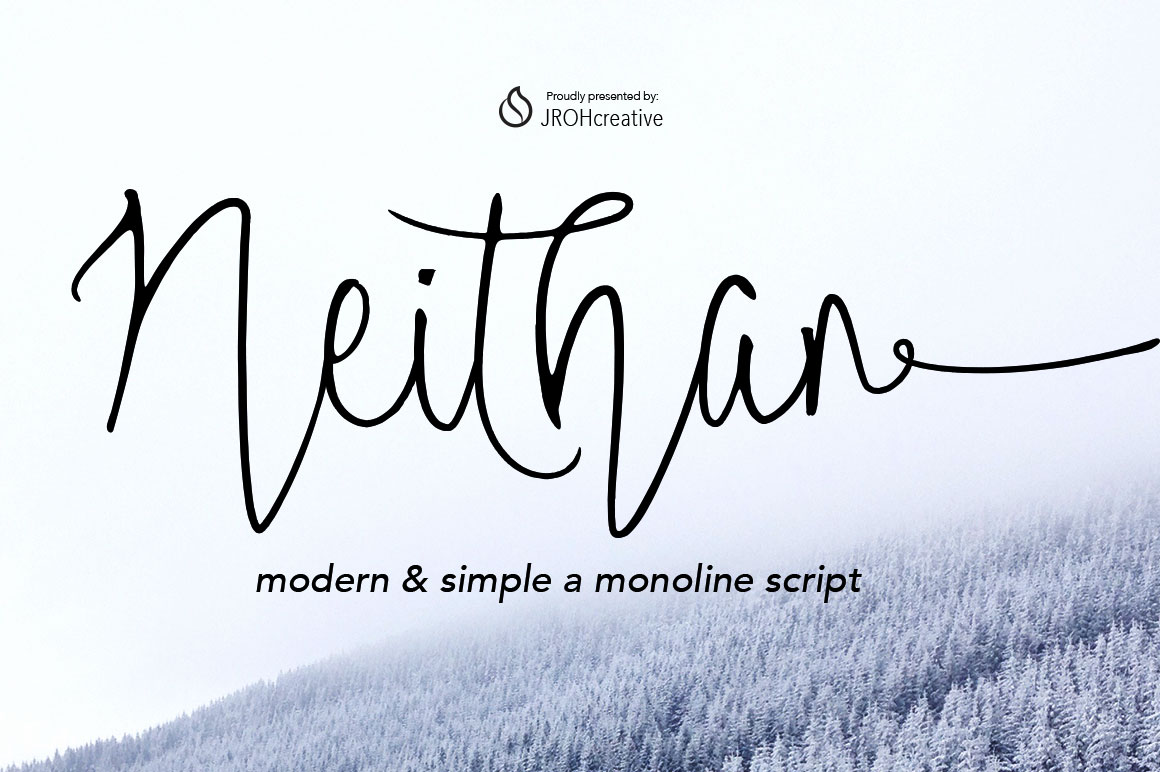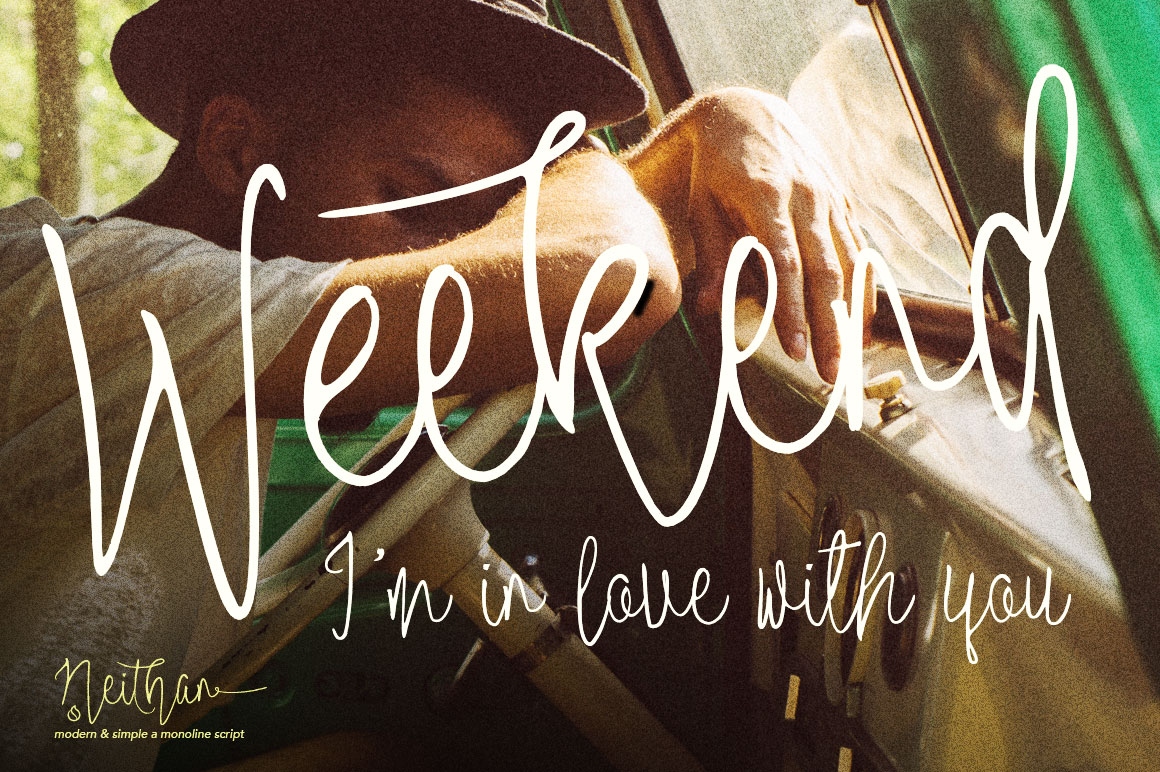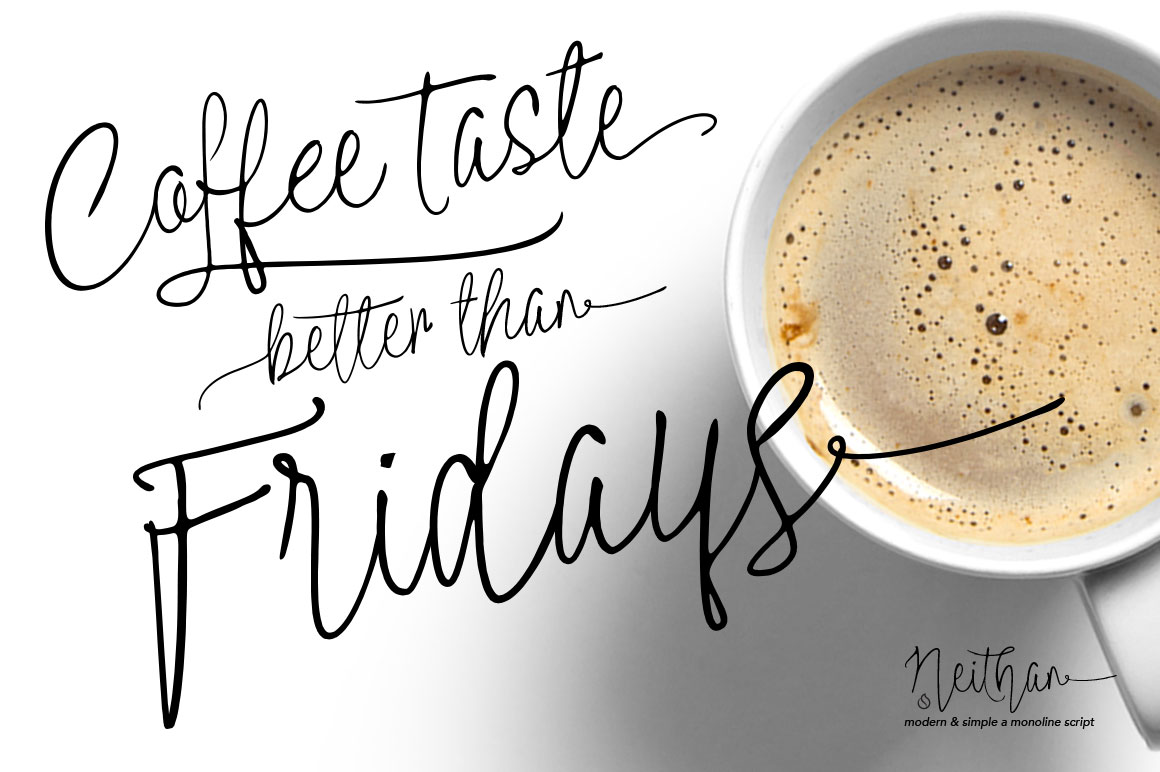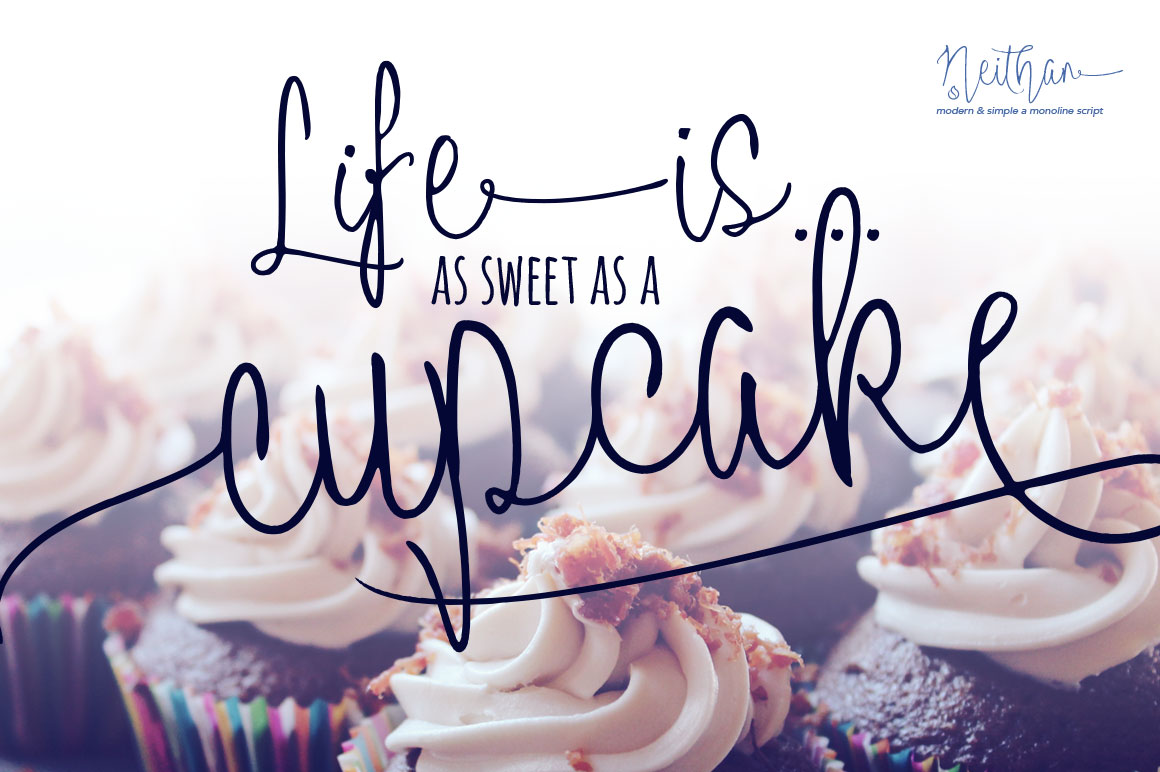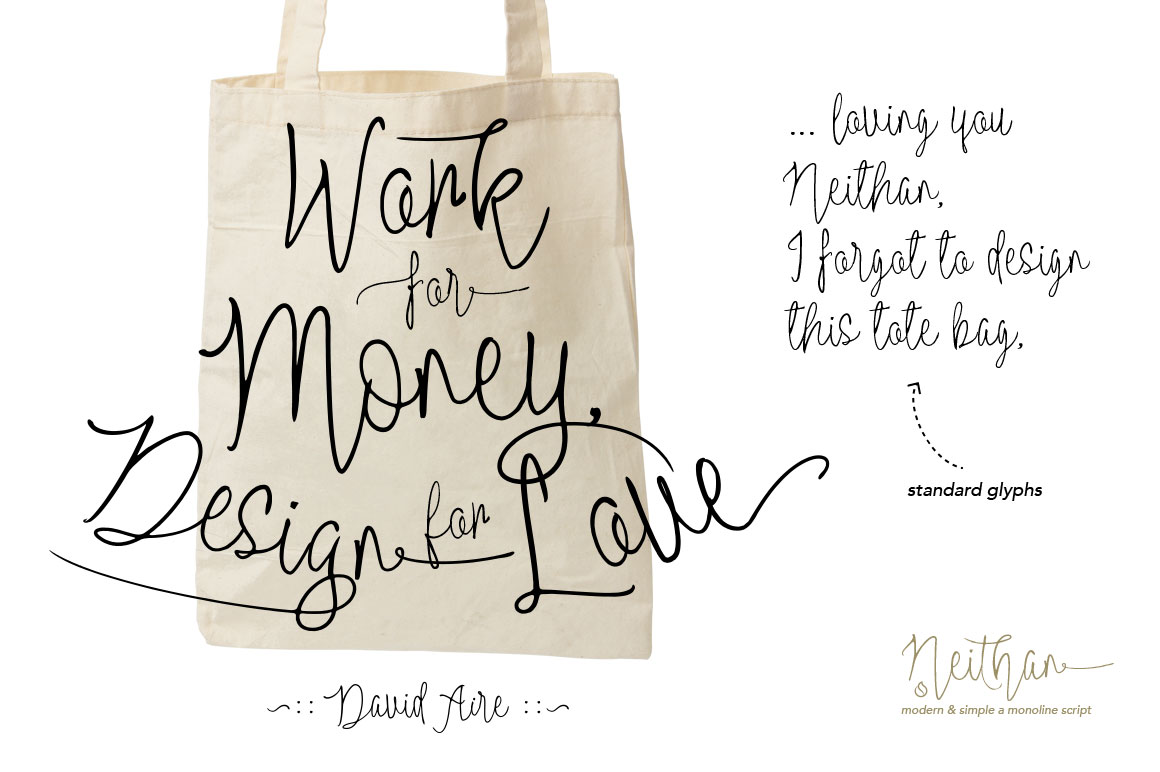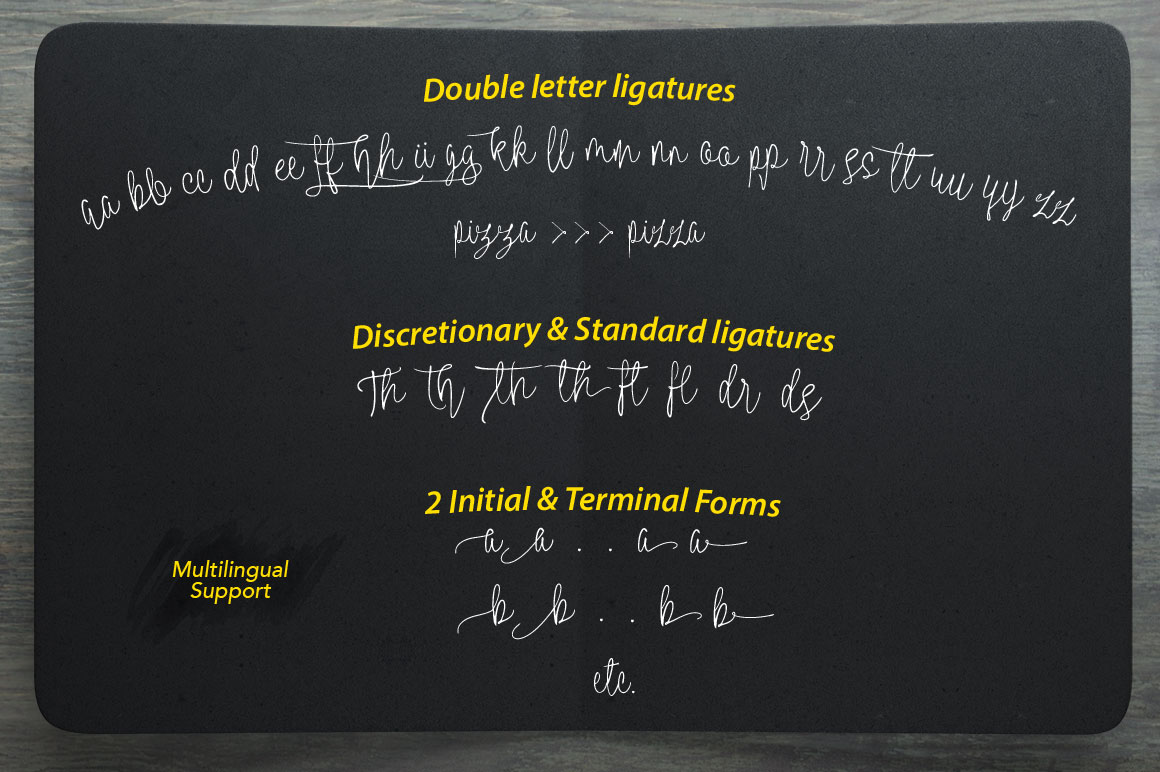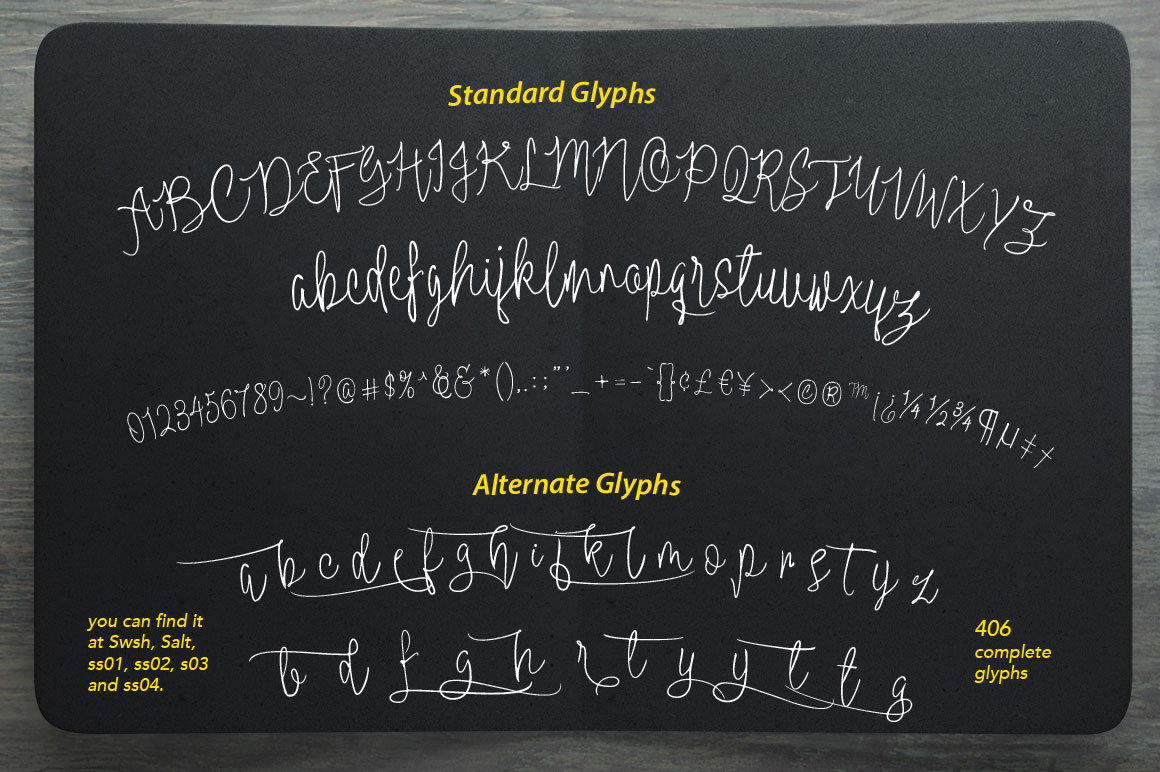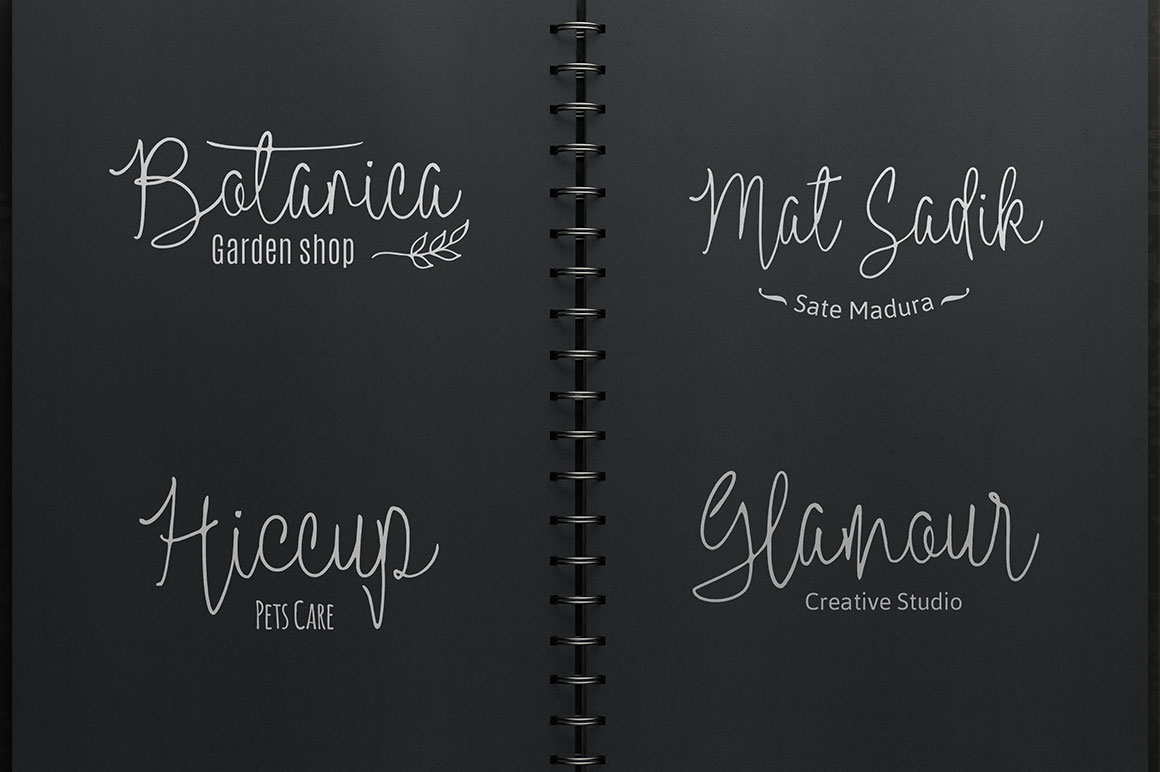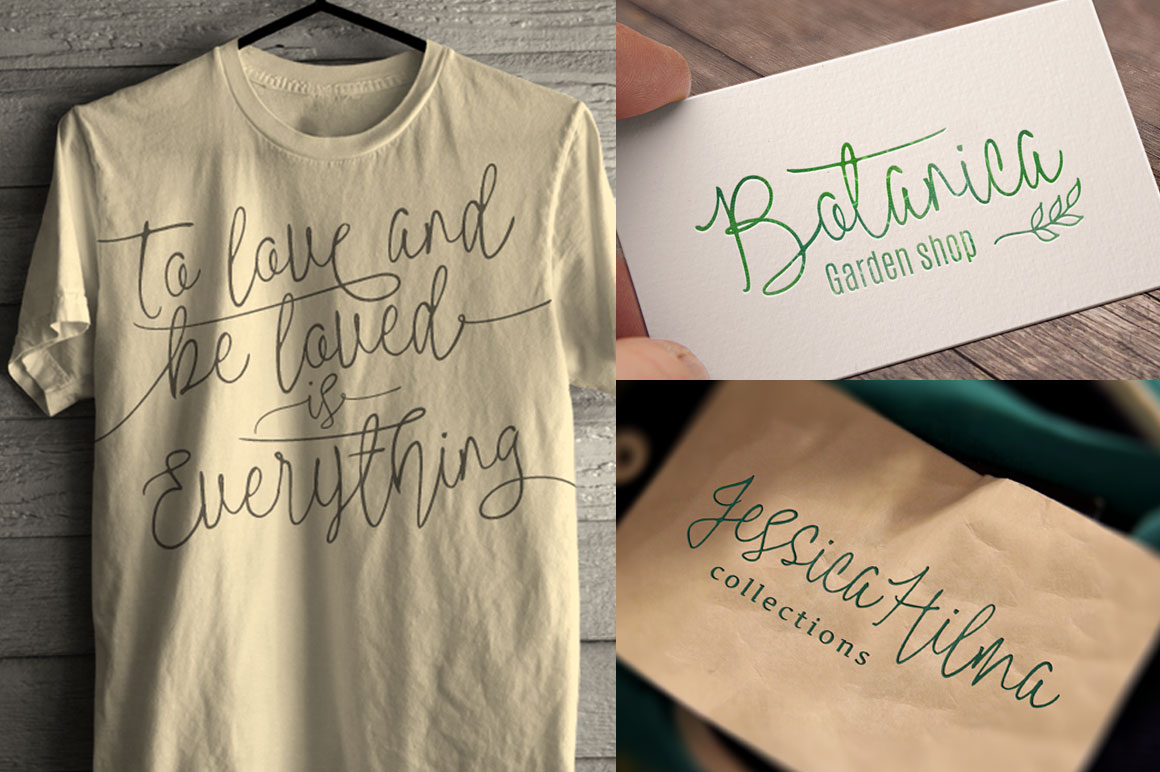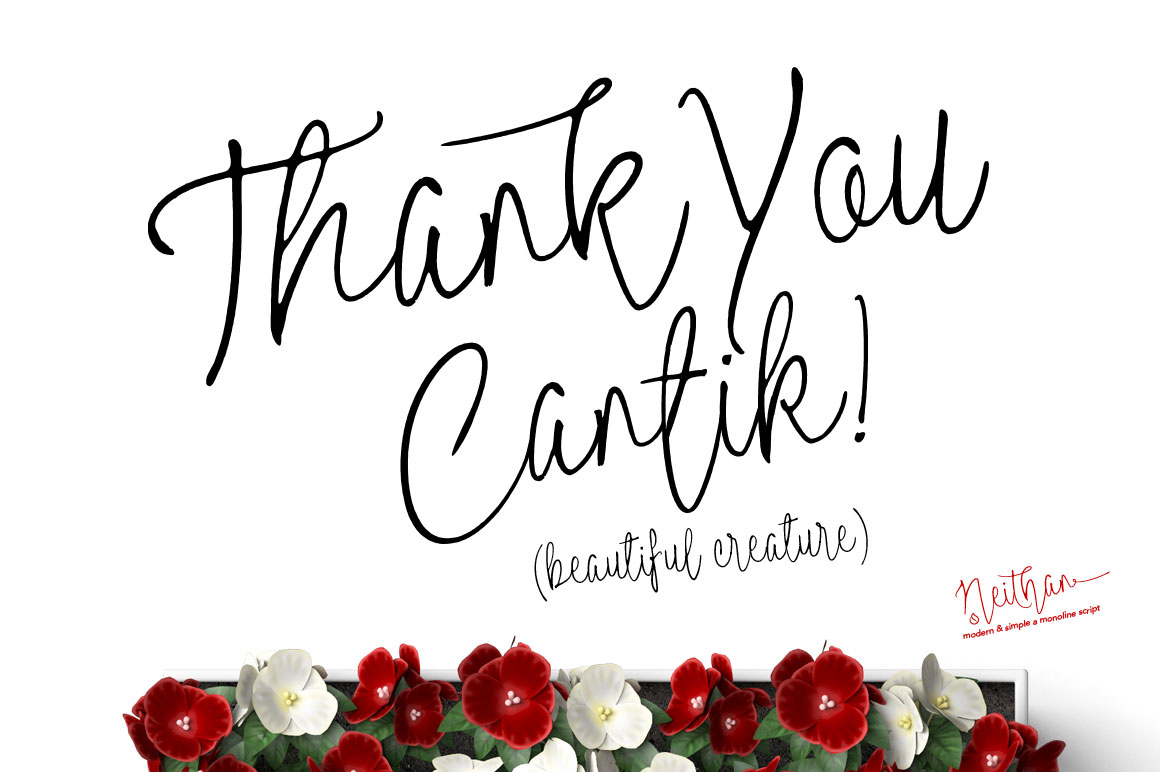
HomeScript FontsNeithan Font Script Fonts Neithan Font FacebookXPinterestWhatsApp Neithan Font Poster 2 Neithan Font Poster 3 Neithan Font Poster 4 Neithan Font Poster 5 Neithan Font Poster 6 Neithan Font Poster 7 Neithan Font Poster 8 Neithan Font Poster 9 Neithan Font Poster 10 About Neithan Font Neithan is a monoline script that has a classical feel with a modern twist. DOWNLOAD NOW People also explored Money Tree Butterfly Font Kidplay Font Chery Santos Satonda Font Trouble Font Caroline Amanda Font Alex P3 Font Beauty in Red Font 263 0 TagsNeithan Font Previous articleMoonfrost FontNext articleKenzo Script Font LEAVE A REPLY Cancel reply Comment: Please enter your comment! Name:* Please enter your name here Email:* You have entered an incorrect email address! Please enter your email address here Website: Save my name, email, and website in this browser for the next time I comment. Personal Use Free Rellista Script Personal Use Free Read more about this font Awesome Snowflakes Font Personal Use Free Read more about this font Wordan Personal Use Free Read more about this font Adrenaline Personal Use Free Read more about this font BLOG 5 Fonts That Will Dominate Design Trends in 2026 5 Fonts for 2026 That Will Dominate Design Trends Typography plays a critical role in visual communication, and as we look ahead to 2026, it’s... Best Fonts for YouTube Videos: Make Your Thumbnails Stand Out How to Install and Use Fonts on Windows, macOS, and Web Projects Top 7 Google Fonts Alternatives for Faster and Privacy-Friendly Web Design (2025)